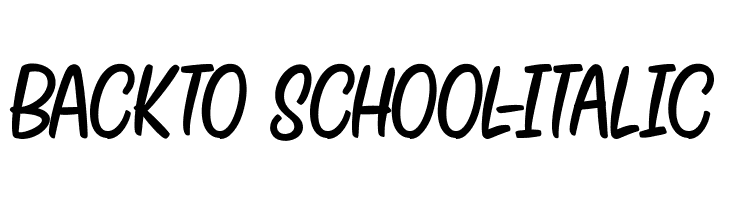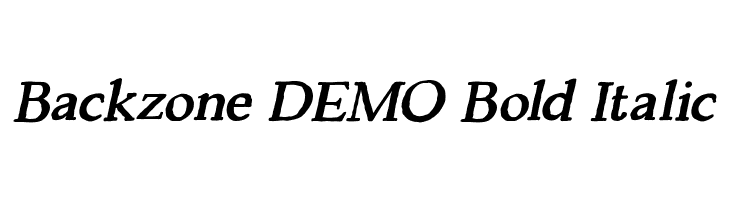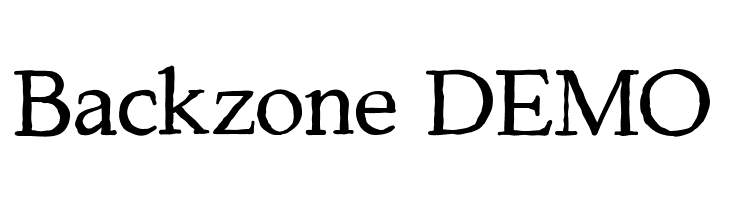
A bold, dynamic script font with playful curves and decorative flair.
A bold, italic script font with dynamic and flowing characters.
A bold, expressive script font with flowing, cursive design.
A bold, italicized script font with dynamic, flowing lines and dramatic flourishes.
A dynamic and expressive handwritten font with fluid strokes.
A playful, handwritten italic font with bold, rounded strokes.
A classic serif font with a vintage, hand-crafted appearance and moderate stroke contrast.
A bold serif font with a handcrafted, textured appearance.
A bold and italicized font with dynamic curves and strong strokes.